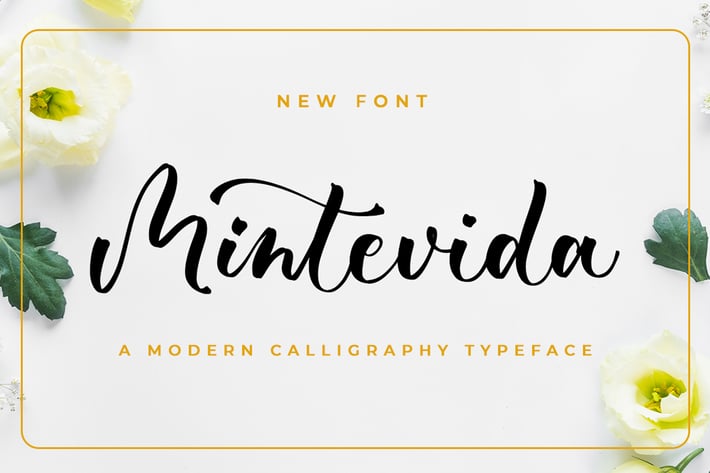
Mintevida - Wedding Font
Mintevida is a lovely and delicate script font that exudes elegance and class. This font was particularly crafted for those who need a beautiful and refreshing look to their designs.
Ligatures, Swash, Alternates